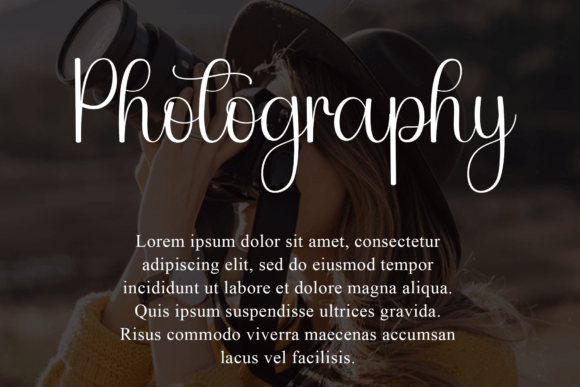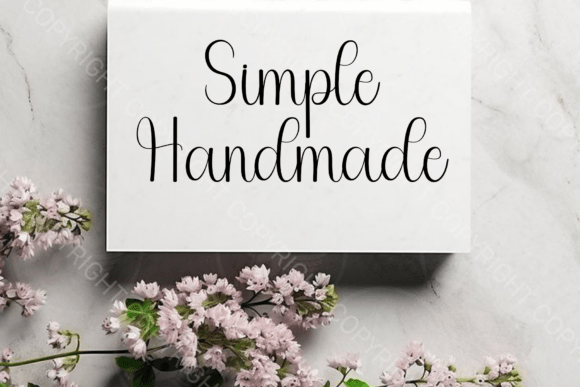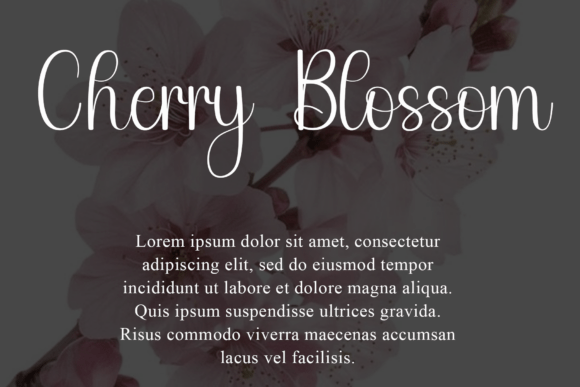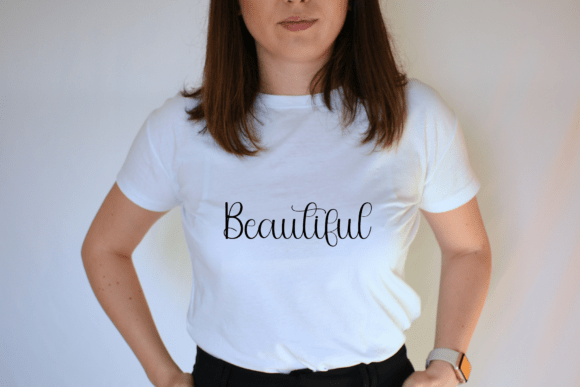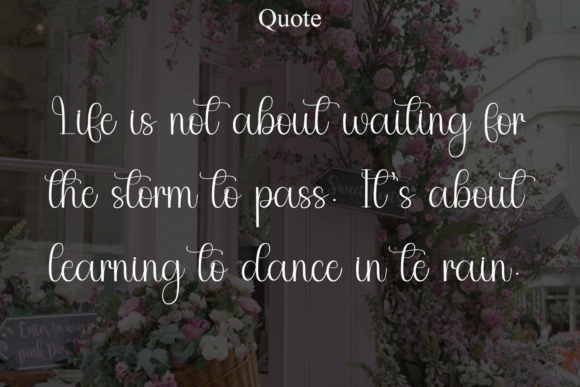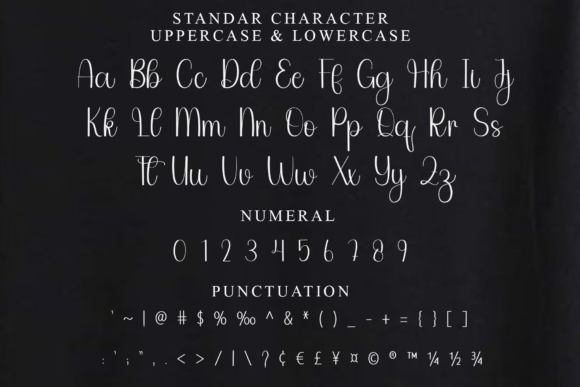
The Aesthetic Font: A Creative Companion for Designers and Crafters
I’ll never forget the time I was working on a social media campaign for a small business, and I just couldn’t find the right font to capture their friendly, approachable vibe. The client wanted something that felt like a warm hug, but everything I tried seemed too formal or generic. That’s when I stumbled upon the Aesthetic font, and it was like a breath of fresh air. Its playful, hand-drawn strokes instantly conveyed the warmth and friendliness I was looking for.
So, what makes the Aesthetic font so special? Let’s dive into the good stuff and a few quirks I’ve noticed.
- ✨ The Aesthetic font exudes warmth and friendliness, making it perfect for personal projects, invitations, and social media graphics.
- ✅ Its round, playful strokes create a relaxed and approachable feel that’s hard to achieve with other fonts.
While the Aesthetic font is amazing, there are a few things to keep in mind:
- ⚠️ Some users might find the font a bit too casual for formal projects or professional branding.
- 🤔 The font’s hand-drawn nature can make it tricky to use for very small text sizes or for designs that require a high level of precision.
The Designer Inspiration Behind Aesthetic Font
The Aesthetic font was created by a talented designer who wanted to capture the warmth and friendliness of handwritten fonts. Inspired by the imperfections and quirks of hand-drawn lettering, the designer crafted a font that’s both playful and approachable.
Q: What is the Aesthetic font, and what makes it unique?
A: The Aesthetic font is a casual and creative font that exudes warmth and friendliness. Its round, playful strokes create a relaxed and approachable feel, making it perfect for personal projects, invitations, and social media graphics.